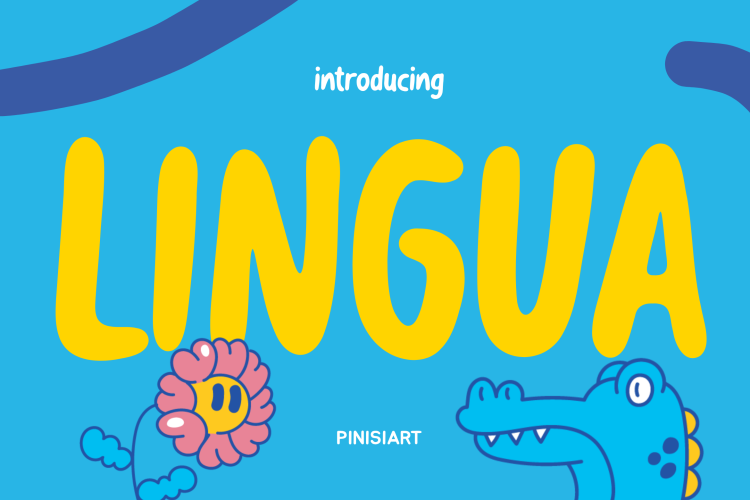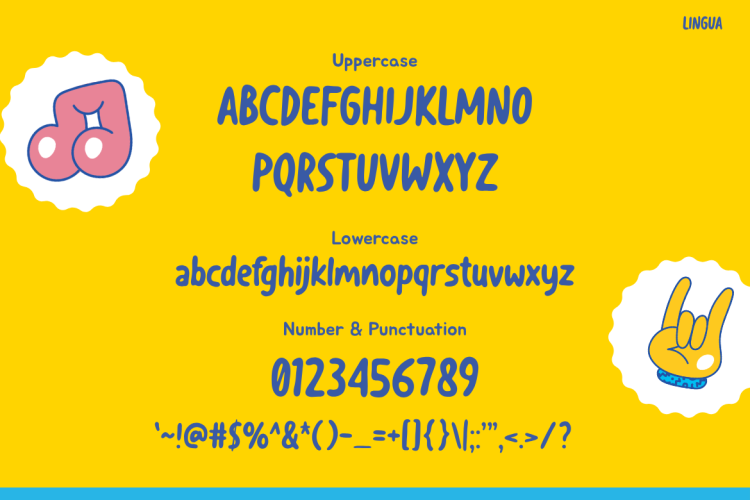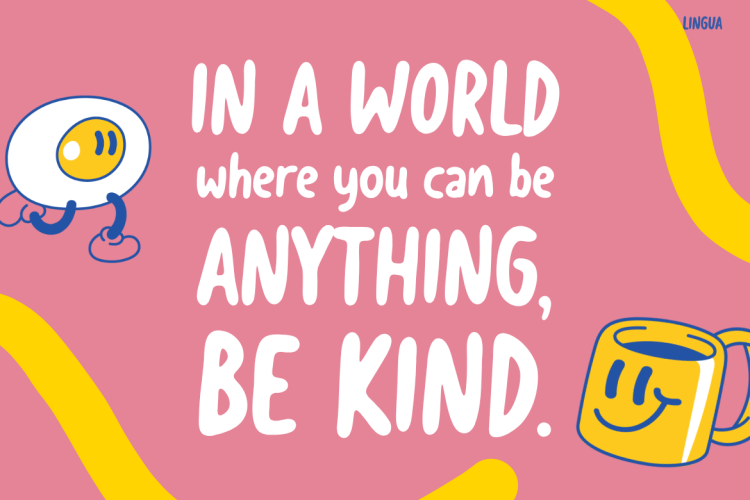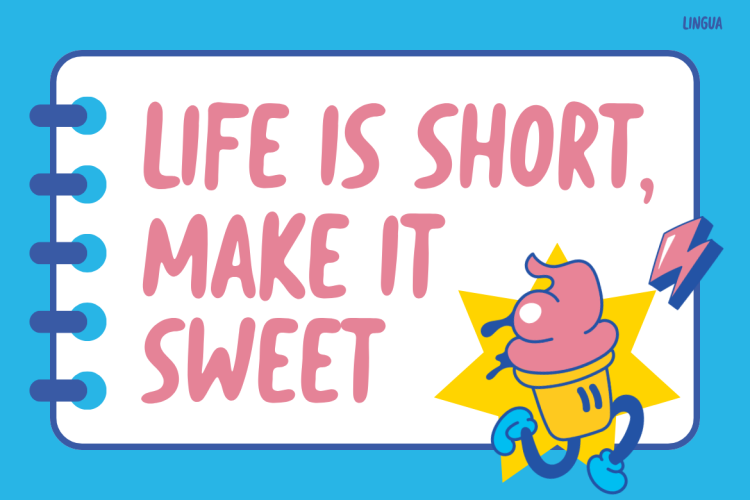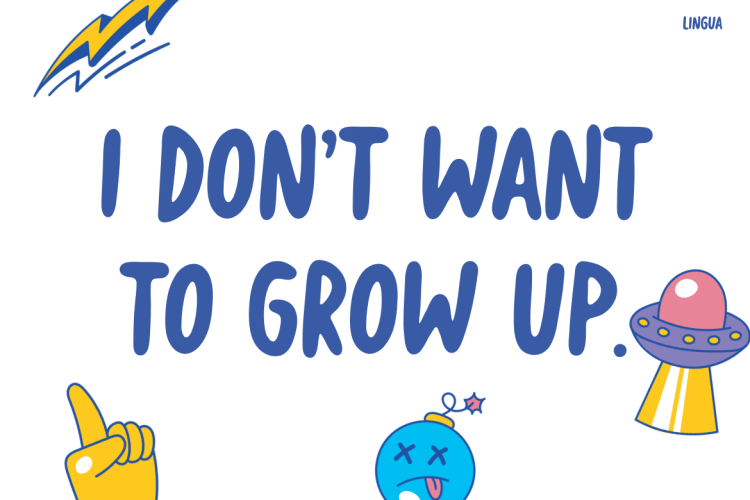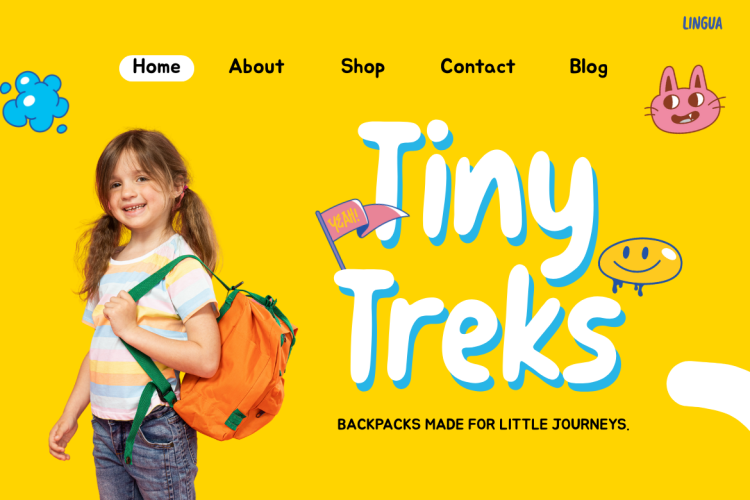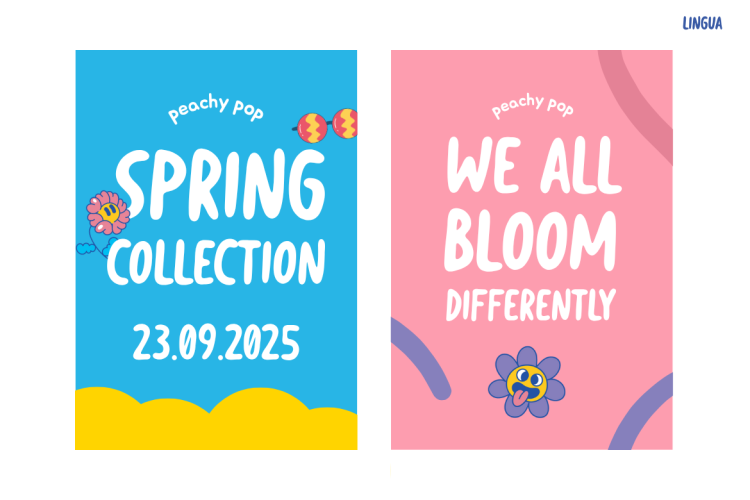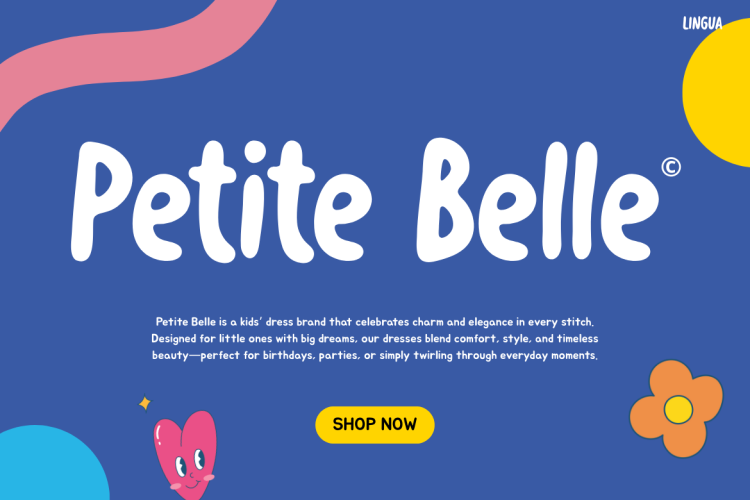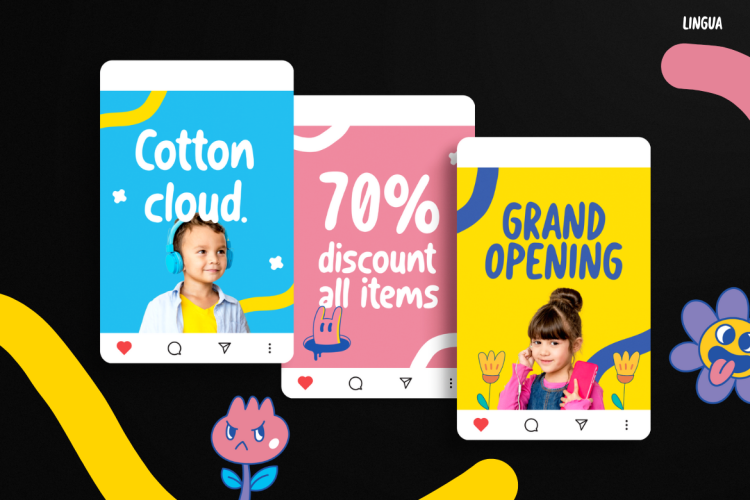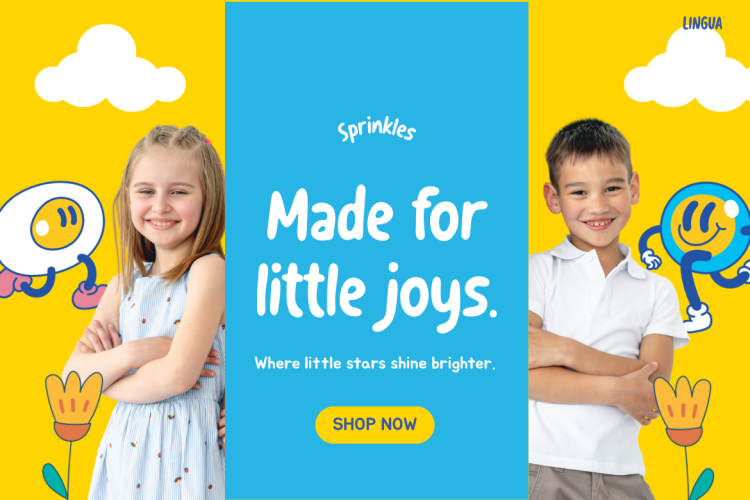
Kids Font LINGUA โ Playful Style for Bright Designs
Kids Font LINGUA brings joy, energy, and creativity into every design project. Its bold strokes and rounded shapes create a friendly, fun look that captures the spirit of childhood. Moreover, the vibrant letterforms attract attention while keeping the design approachable and easy to read. With its playful structure, Kids Font LINGUA adds personality to both digital and print projects. Therefore, you can highlight cheerful messages, design kidsโ products, or create layouts that spread positivity with ease.
Unlike many ordinary fonts, Kids Font LINGUA delivers a balance of style and function. It feels modern yet timeless, which makes it a dependable choice for projects that must appeal to both kids and parents. In addition, its versatility ensures that every design feels fresh, colorful, and full of life.
Who Is It Perfect For?
Kids Font LINGUA suits designers, teachers, small business owners, and content creators who want to add a youthful touch to their work. For example, you can use it for childrenโs book covers, classroom posters, kidsโ clothing brands, toy packaging, or birthday invitations. In addition, it also works well for playful social media graphics that need extra charm.
Marketers who focus on family-friendly products can rely on this font to build trust and spark joy. Furthermore, because of its clean readability, LINGUA also fits apps, websites, or e-learning platforms for children. Creative entrepreneurs, on the other hand, can combine this font with bright colors and illustrations to craft branding that feels warm, professional, and memorable. Therefore, it supports both creative freedom and consistent branding results.
Final Thoughts
In a world where first impressions matter, Kids Font LINGUA helps your designs shine with joy and positivity. Its playful style ensures your work stands out and stays memorable. Additionally, the fontโs versatility makes it a reliable tool for any project, from print to digital. If you want to add creativity, charm, and happiness to your designs, choose LINGUA today. As a result, every word you create will bring delight, energy, and lasting impact.